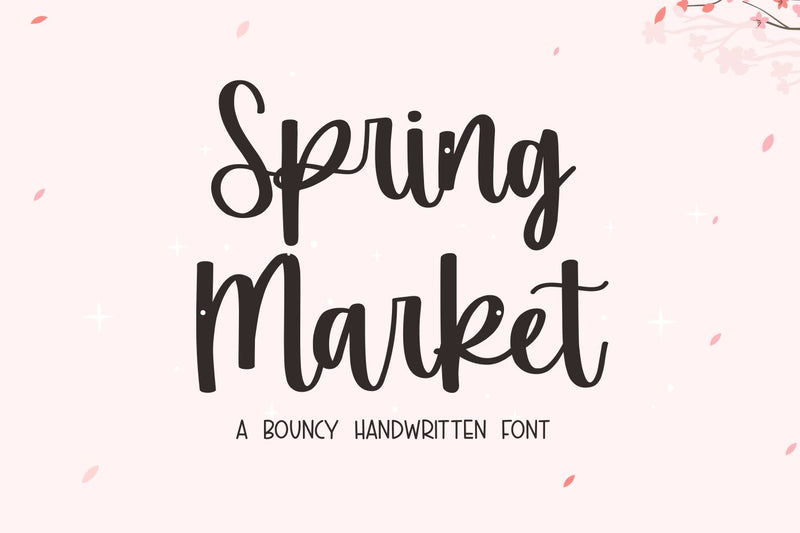
Spring Market
Spring Market is a bouncy calligraphy script font.
It is a quirky and natural hand-drawn font.
Together or apart, these fonts are ideal for adding a chic and cheery touch to your crafts.
This font is ideal for crafting, branding, and decorates your any project. These fonts are perfect for wedding invitations or your blog. Also with their help, you can create a logo or beautiful frame for your home. Or just use it for your business, book covers, stationery, marketing, magazines, and more. Fall in love with its incredibly versatile style and use it to create spectacular designs!
Use this font for any crafting project that requires a personalized look!